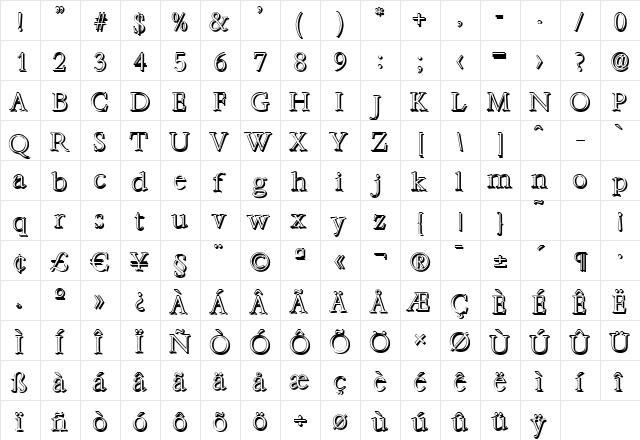
AndrewBeckerShadow-Xlight Regular
Design Context for AndrewBeckerShadow-Xlight Typeface
AndrewBeckerShadow-Xlight brings ornamental detail and strong personality to headlines and identities, where visual impact matters more than quiet functionality. The delicate stroke weight brings airiness and refinement to layouts.
Font Pairing: Pair with a clean neutral sans-serif for body copy to let AndrewBeckerShadow-Xlight's character lead without overwhelming the composition.
Pro Tip: Use AndrewBeckerShadow-Xlight exclusively at display sizes — it was designed to be seen, not read at length. Let a neutral companion handle body copy.